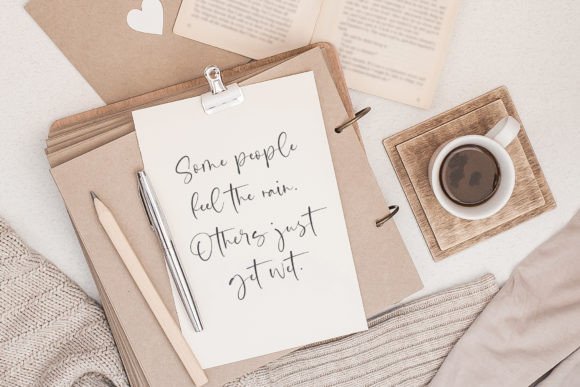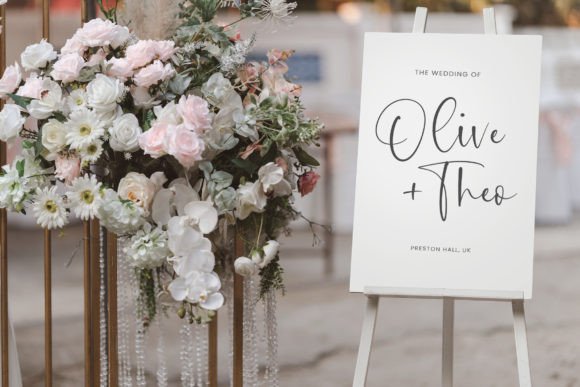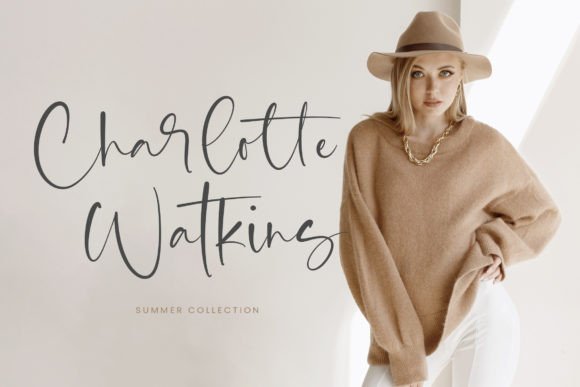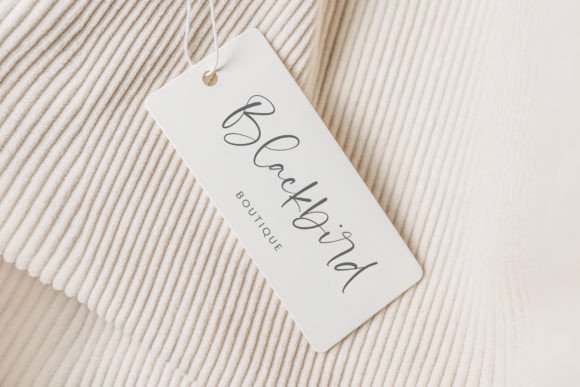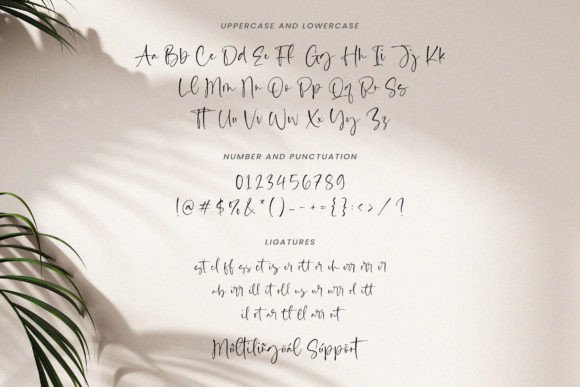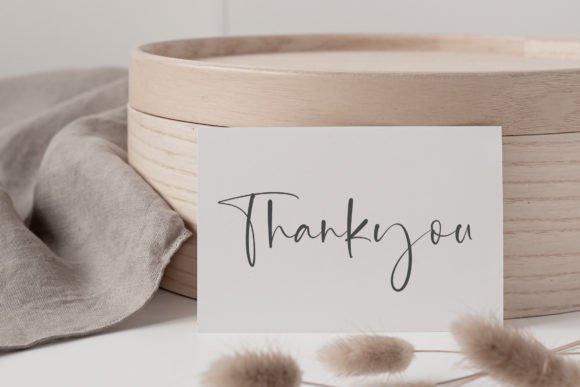
Discover the Elegance of Calista Brighton Font: Elevate Your Designs with Sophistication
In the realm of typography, a font can make or break the aesthetic appeal of a design. For those seeking a touch of elegance and sophistication, the Calista Brighton Font is an exceptional choice. This dazzling script font is meticulously crafted with high attention to detail, making it a valuable addition to any designer’s font library. Whether you’re working on a branding project, crafting a beautiful wedding invitation, or simply looking to enhance your digital creations, Calista Brighton is poised to become your go-to font for adding a dash of refinement and style.
The Charm of Calista Brighton
Calista Brighton is not just any script font; it’s a masterpiece that brings a unique blend of classic elegance and modern flair. Its neatly crafted and highly detailed design ensures that it stands out in any context, from print to digital media. The fluidity and grace of its strokes make it perfect for designs that require a touch of sophistication and luxury. This font’s versatility means it can be used across a wide range of projects, including but not limited to, logos, invitations, packaging, and website headers.
Why Choose Calista Brighton?
- Versatility: One of the key benefits of Calista Brighton is its incredible versatility. It can seamlessly fit into various design themes, from vintage and rustic to modern and minimalist.
- Elegance: Its elegant strokes and sophisticated appearance make it the perfect choice for designs that aim to convey luxury, class, and refinement.
- Readability: Despite its script nature, Calista Brighton maintains a high level of readability, making it suitable for both headings and body text.
- Unique Touch: In a sea of generic fonts, Calista Brighton offers a unique touch that can help your designs stand out from the crowd.
Applications of Calista Brighton Font
The applications of Calista Brighton are vast and varied. Here are a few ideas to get you started:
- Branding and Logos: Use Calista Brighton to create a memorable brand identity that exudes elegance and sophistication.
- Wedding and Event Invitations: Add a touch of luxury and romance to your wedding or event invitations with this beautiful script font.
- Packaging Design: Elevate your product packaging with Calista Brighton, making your products stand out on store shelves.
- Digital Media: From website headers to social media graphics, Calista Brighton can add a professional and stylish touch to your online presence.
Tips for Using Calista Brighton Effectively
To make the most out of Calista Brighton, consider the following tips:
- Pair it Wisely: Combine Calista Brighton with complementary fonts to create visual interest and hierarchy in your designs.
- Adjust Size and Color: Experiment with different sizes and colors to ensure that Calista Brighton fits perfectly with your design theme.
- Consider Context: Always consider the context in which the font will be used, ensuring it aligns with the overall mood and message of your design.
Calista Brighton Font is a dazzling script font that can significantly enhance your designs with its elegance and sophistication. Its versatility, readability, and unique touch make it an invaluable asset for designers and crafters looking to elevate their projects. Whether you’re aiming to create stunning branding, beautiful invitations, or captivating digital content, Calista Brighton is a font that promises to deliver results. Add it to your font library today and discover the difference it can make in your designs.